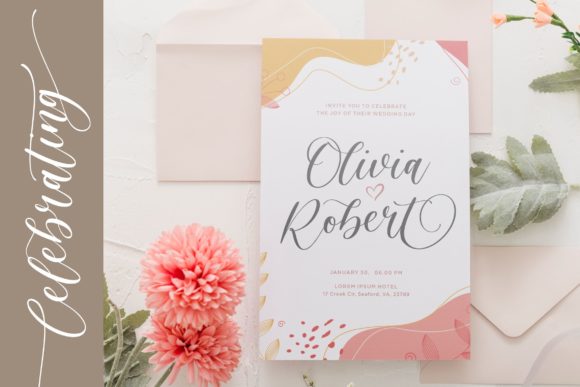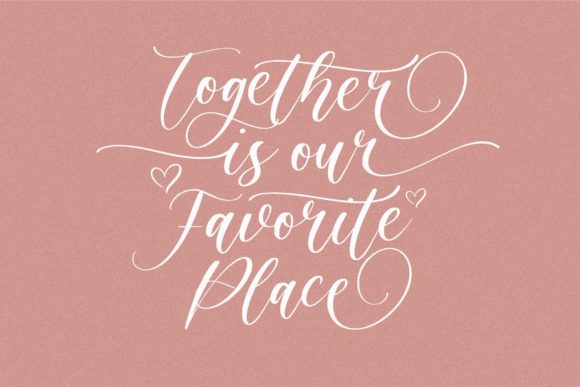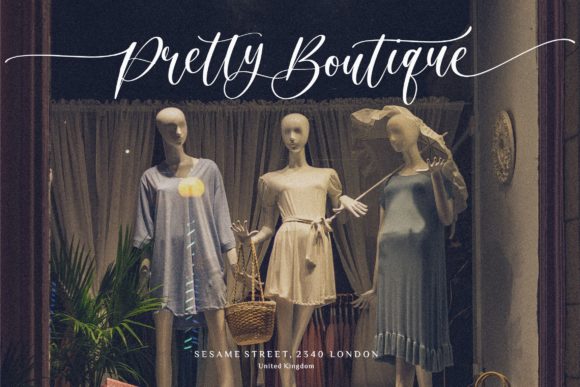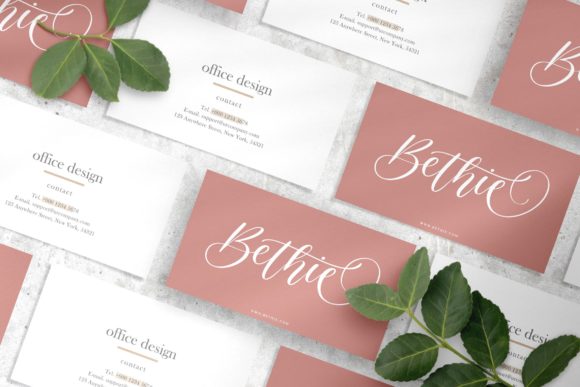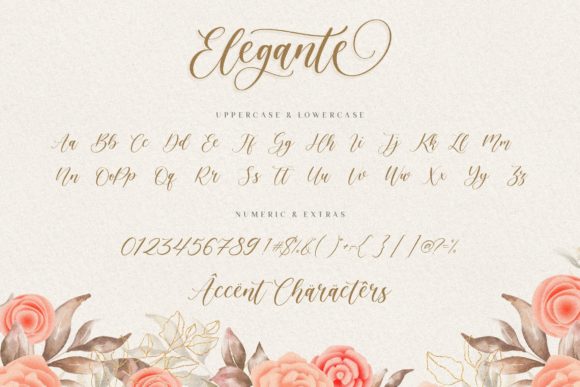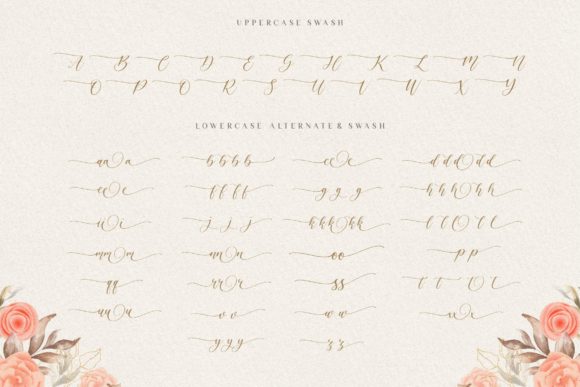
The Magic of Elegante Font: A Designer’s Delight
I’ll never forget the time I was working on a wedding invitation project, and my client asked for a font that would make their special day feel like a fairytale. I scoured the internet, tried countless fonts, but nothing seemed quite right. That was until I stumbled upon Elegante Font. This enchanting handwritten script font has been a game-changer for me, and I’m excited to share its magic with you! ✨
An Honest Review of Elegante Font
- ✨ Romantic and whimsical feel: Elegante Font adds a touch of elegance and sophistication to any project.
- ✅ Versatility: From greeting cards to headlines, this font is perfect for a wide range of applications.
- 🎉 PUA encoded: Easily access all the beautiful glyphs and swashes to take your design to the next level.
While Elegante Font is a stunning addition to any project, there are a few things to keep in mind: 🤔
- ⚠️ Legibility at small sizes: As with many script fonts, Elegante may be difficult to read at very small sizes.
- ⚠️ Overuse of swashes: While the swashes are beautiful, be careful not to overuse them, as they can make your text look cluttered.
The Backstory of Elegante Font
Elegante Font was designed with love and care by a talented type designer who wanted to create a font that would evoke the feeling of elegance and sophistication. The designer’s inspiration came from classic calligraphy and handwritten scripts, with a modern twist.
| Font Name | Elegante Font |
| Author | Balpirick |
Q: Is Elegante Font suitable for body text?
A: While Elegante Font is beautiful, it’s best suited for headlines and titles. For body text, you may want to choose a more legible font.